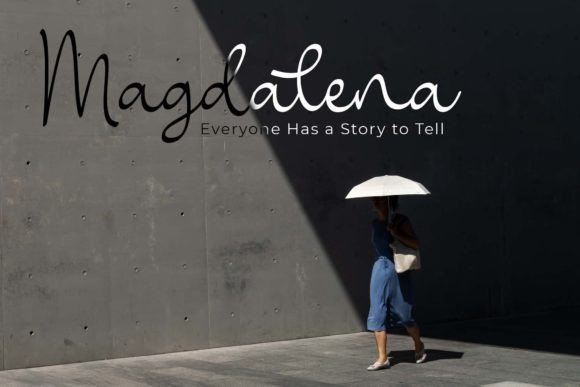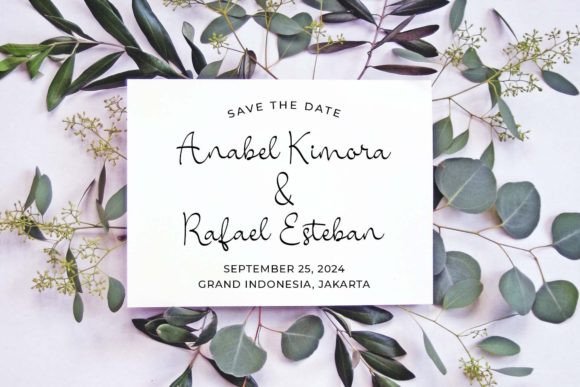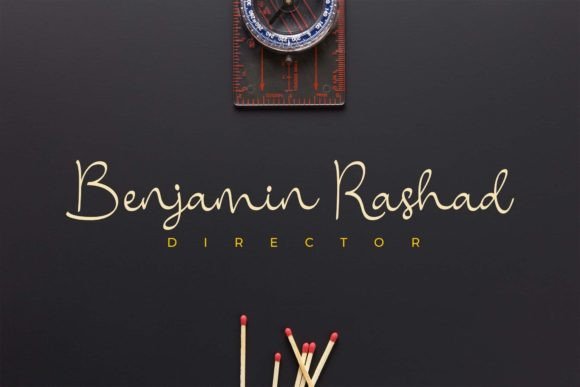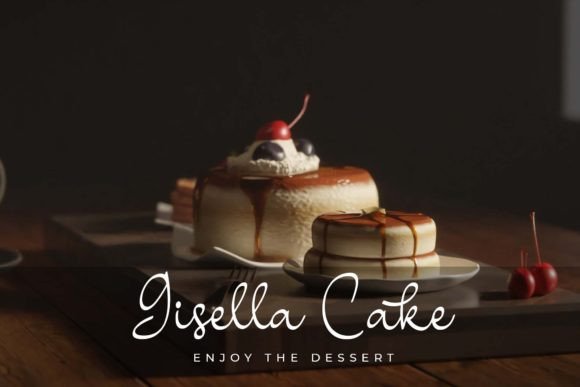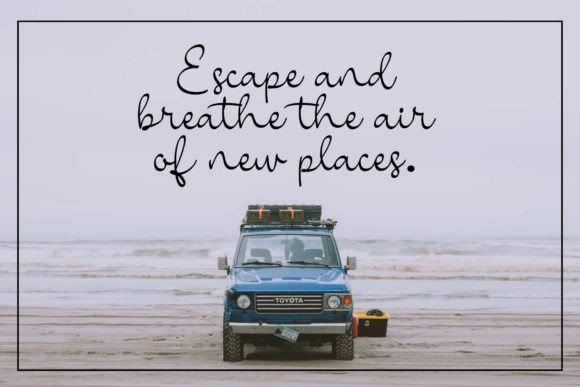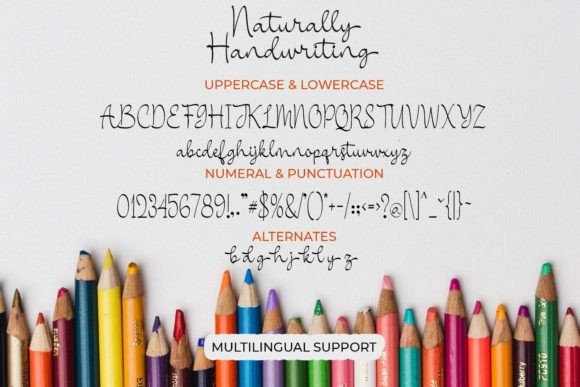
Introduction to Naturally Handwriting Font
Have you ever been working on a creative project, pouring your heart and soul into every detail, only to find the perfect font that brings it all together? For many designers, this moment is pure magic. It’s the moment when all the elements fall into place, and the design begins to feel truly alive. For those seeking to add a touch of elegance and sophistication to their work, one font stands out from the rest: the Naturally Handwriting Font.
This delicate and refined script font is a game-changer for designers looking for a high-quality design resource that exudes sophistication and poise. With its fluid strokes and subtle curves, the Naturally Handwriting Font is perfect for designs that require a sense of refinement and glamour, such as wedding invitations, branding, or editorial design. Whether you’re working on a project with a transparent background or a complex layout, this font is sure to deliver.
Key Features of Naturally Handwriting Font
- High-quality, unique design resource perfect for creative projects, offering a natural and authentic handwriting feel.
- Features a transparent background, making it easy to place over any image or background without any unwanted color or texture.
- Designed with high resolution, ensuring crisp and clear text display, even at large sizes.
- Comes in a single style, ideal for creating a cohesive and consistent look across your design project.
- Perfect for use in digital design, print materials, and even web design, thanks to its high-quality and versatile design.
Honest Review: Naturally Handwriting Font
I recently came across the Naturally Handwriting Font while searching for a design resource for a creative project. As a designer, I appreciate high-quality fonts that can add a personal touch to a design. The Naturally Handwriting Font is a great option for anyone looking for a free download with a transparent background.
What works well with this font is its versatility. I used it in a project where I needed to create a whimsical feel, and it fit perfectly. The font is easy to use and comes in a variety of styles, making it suitable for both digital and print designs. ✨
- High-quality and clear letters
- Comes in a variety of styles
However, there are some limitations to consider. The font may not be suitable for professional or corporate designs, as it has a more casual and handwritten feel. Additionally, the font may not be as customizable as some other options. ⚠️
Overall, I’m impressed with the Naturally Handwriting Font. It’s a great option for designers who want a high-quality, free font that can add a personal touch to their creative projects. While it may have some limitations, it’s definitely worth considering for your next design project.
Naturally Handwriting Font
The Naturally Handwriting Font is a high-quality, free download that can be used for a variety of creative projects. This font features a transparent background, making it easy to incorporate into any design.